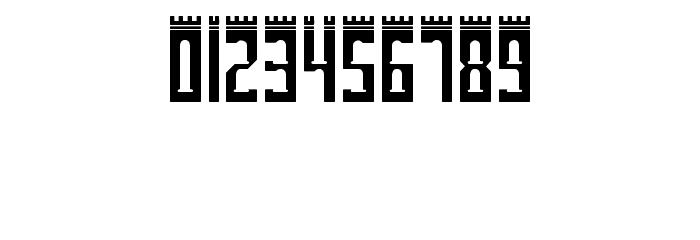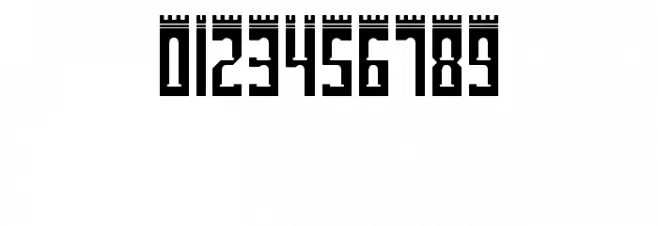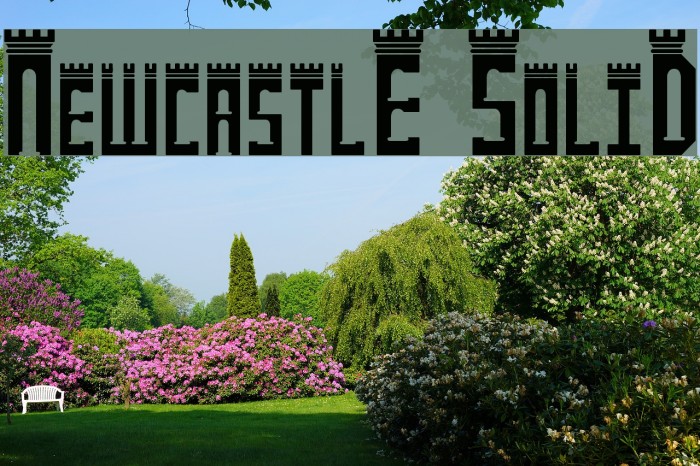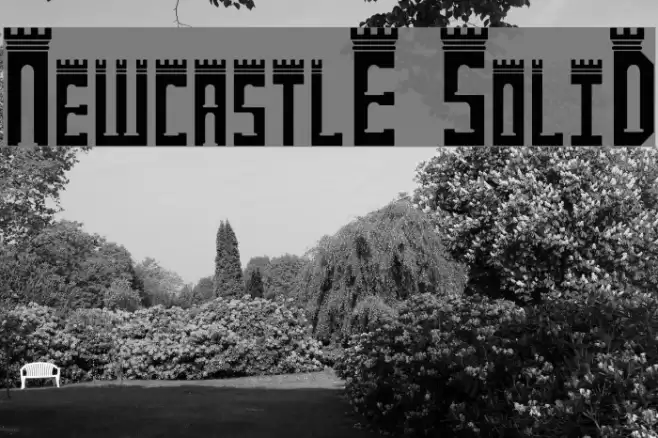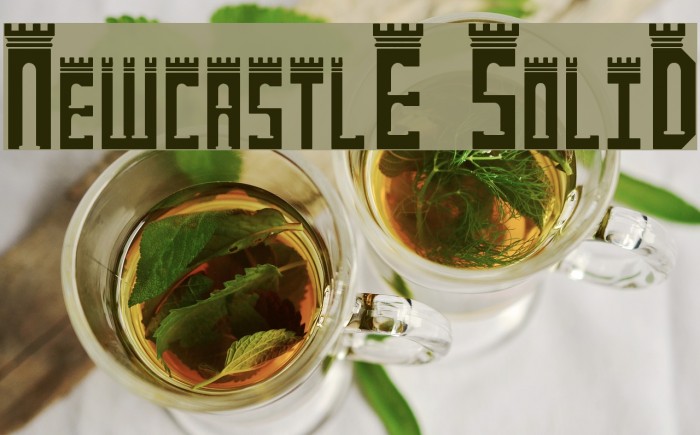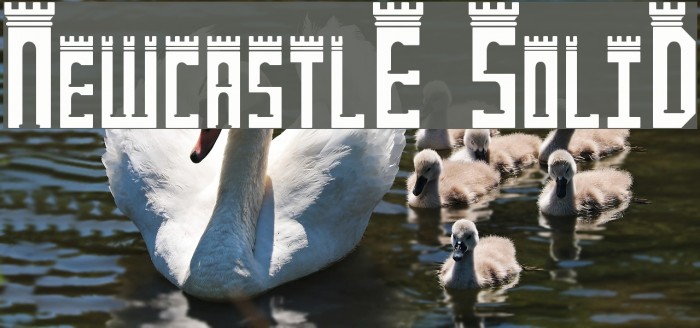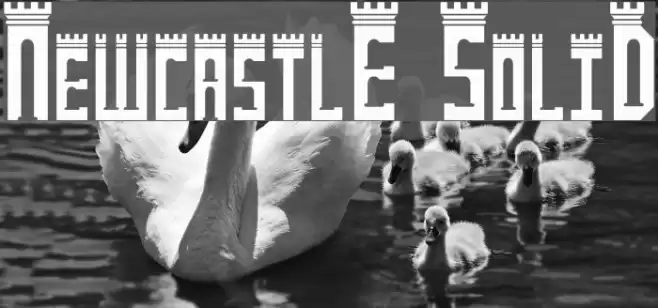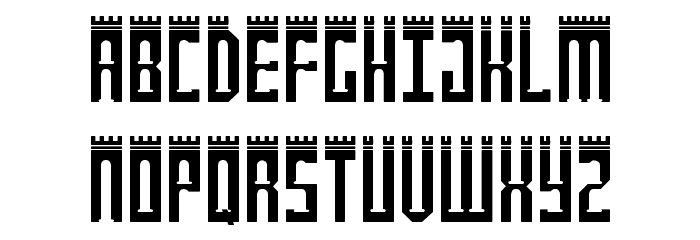
NewcastlE SoliD Font
This font features a bold and striking design with a castle-like motif incorporated into the top of each character, giving it a unique and decorative appearance. The uppercase letters are particularly distinctive, with strong vertical lines and a solid, blocky structure that conveys a sense of strength and stability. The lowercase letters maintain this theme, though they are slightly more condensed, providing a balanced contrast to the uppercase set. The numerals are consistent with the overall style, ensuring uniformity across all characters. This font's decorative elements make it ideal for projects that require a medieval or fantasy aesthetic.
A bold, decorative font with a castle motif, ideal for medieval-themed designs.
• Proposed Projects: Perfect for fantasy book covers, themed event posters, video game titles, and branding for medieval-themed businesses.
• Category: Decorative/Display
• Bold: Yes
• Italic: No
• Weight: Bold
• Width: Normal
• Character Spacing: Normal
• Contrast: Low
• Overall Style: Decorative
• Use Case: Headlines, Logos